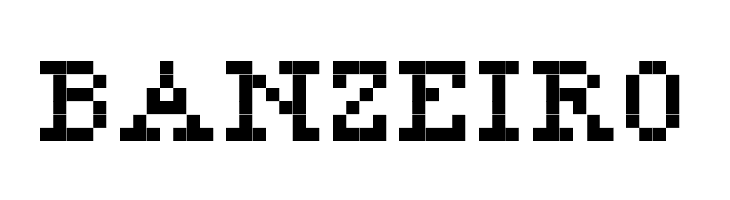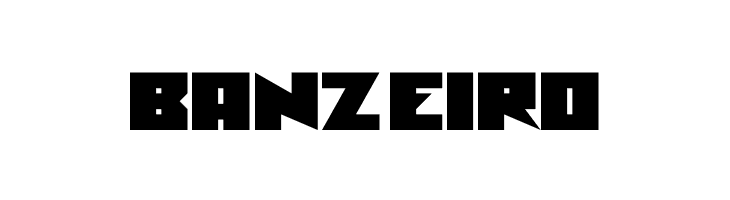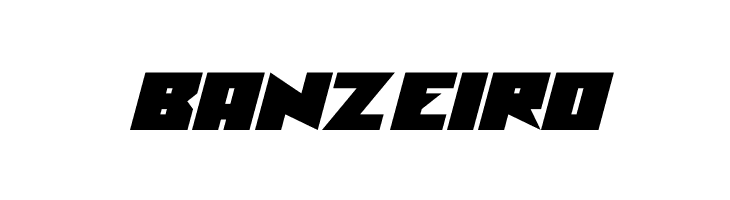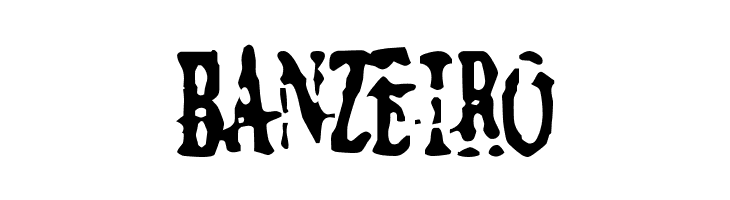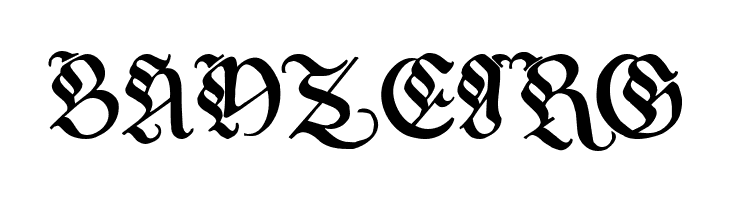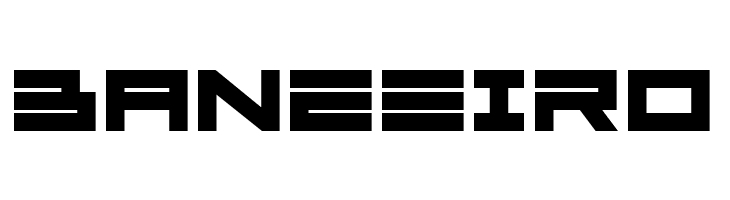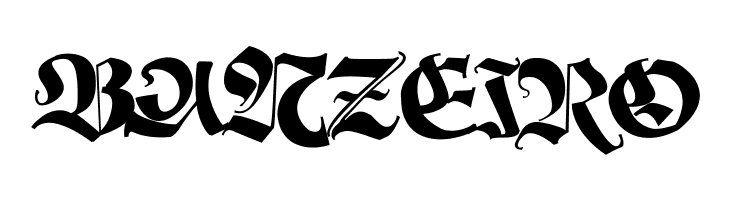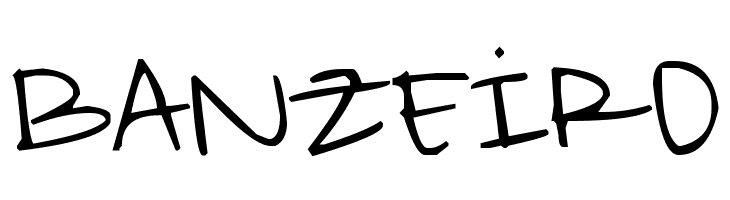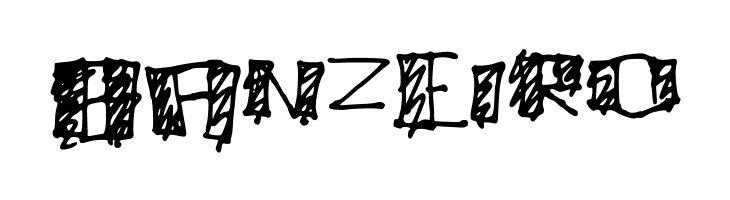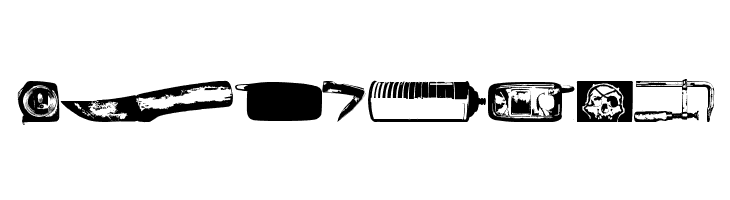
Hand-drawn, illustrative font made from meeting scene sketches.
A bold, decorative font with distorted and artistic letterforms.
A bold, impactful font with strong strokes and high contrast.
A bold, angular, and futuristic italic font with a dynamic, geometric design.
A bold, geometric font with a futuristic, digital aesthetic.
A bold, geometric font with blocky, angular letterforms and a futuristic style.
A bold, geometric font with a futuristic, industrial style.
). ) A geometric, minimalist font with sharp angles and clean lines.
A bold, gothic-style Blackletter font with intricate detailing.
A bold, geometric font with sharp, angular edges and a modern flair.
An eclectic display font made from assembled object photographs.
A modern, clean sans-serif font with balanced proportions and geometric influences.
A playful, bold font with rounded, bubbly characters and a whimsical style.
A playful, bold font with rounded, blob-like characters and a whimsical style.
A playful, bold font with organic, melting shapes.
A futuristic, geometric font with a double-line structure and consistent stroke width.
A bold, intricate Blackletter font with ornate, angular letterforms.
A bold, distressed font with a grungy, textured appearance.
A bold, angular font with dynamic, geometric shapes.
A playful decorative font with unique stick figure characters.
An abstract, artistic font with bold, irregular strokes and a chaotic style.